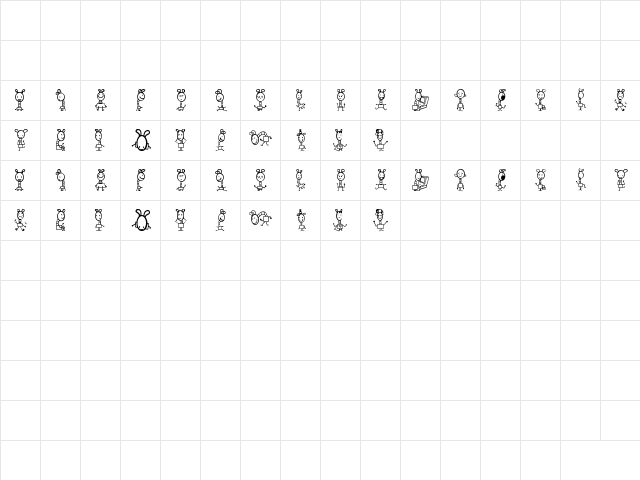
happie Regular
Design Context for happie Typeface
happie is a composed and adaptable typeface that performs quietly and consistently across a wide range of design contexts.
Pro Tip: Use happie in both headline and body roles to test its range before committing to a single application.